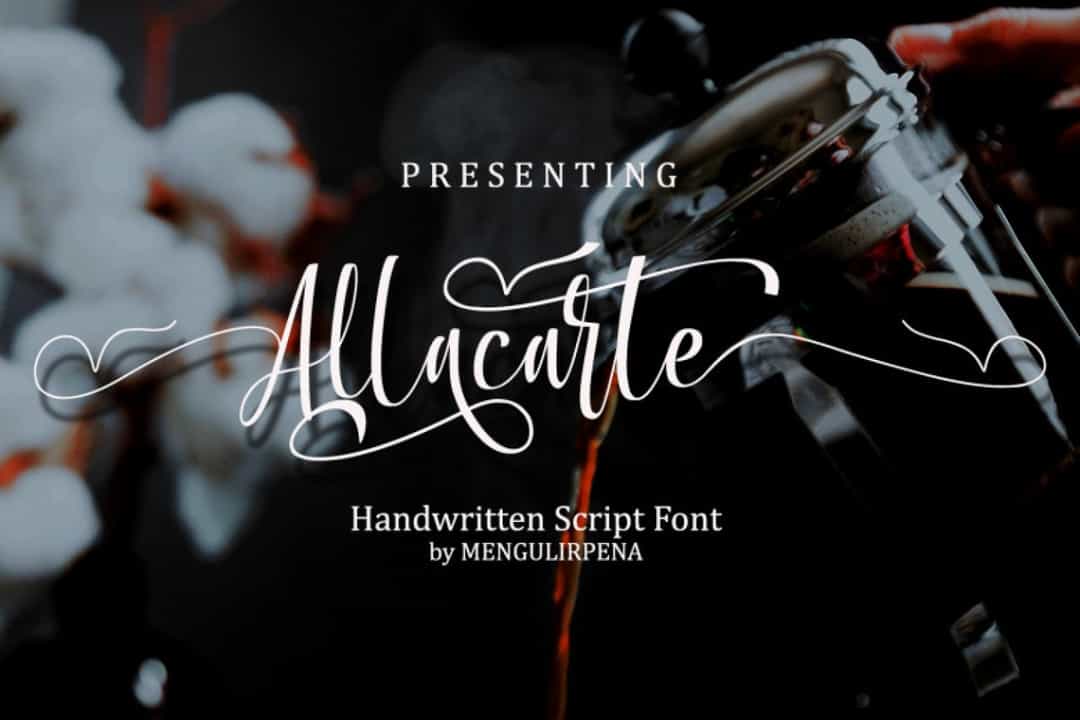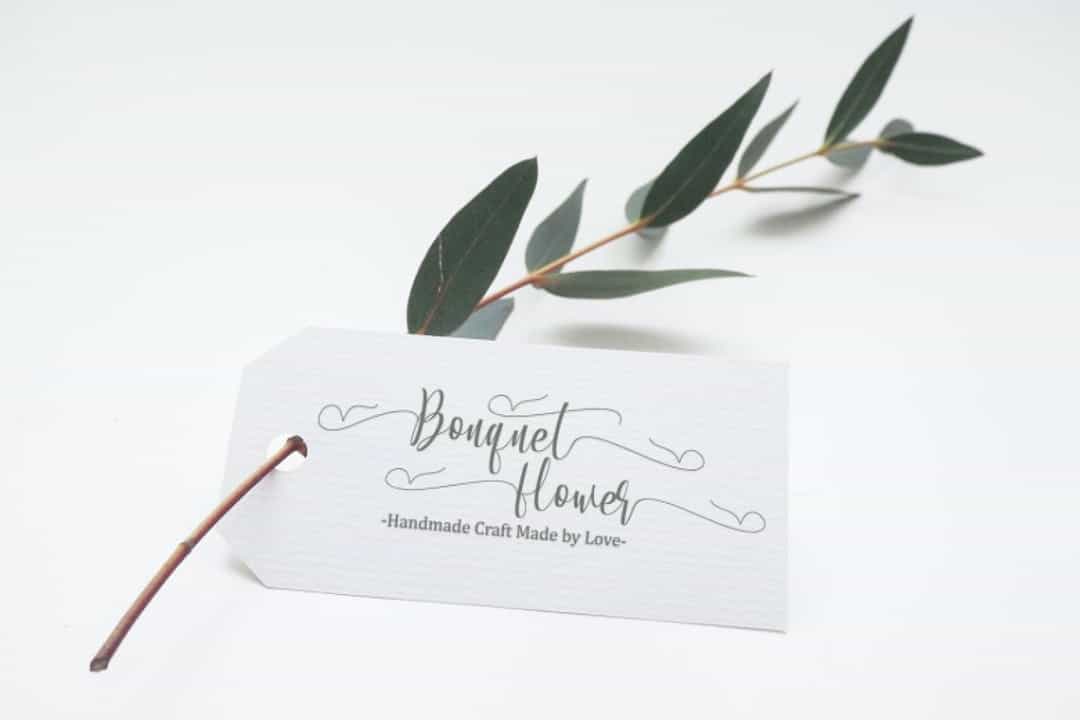
Allacarte Font is elegant and charming. It makes a striking impression when used on wedding invitations, thank-you cards, greeting cards, quotes for corporate cards or logos, greeting cards or any design needing an individual touch.